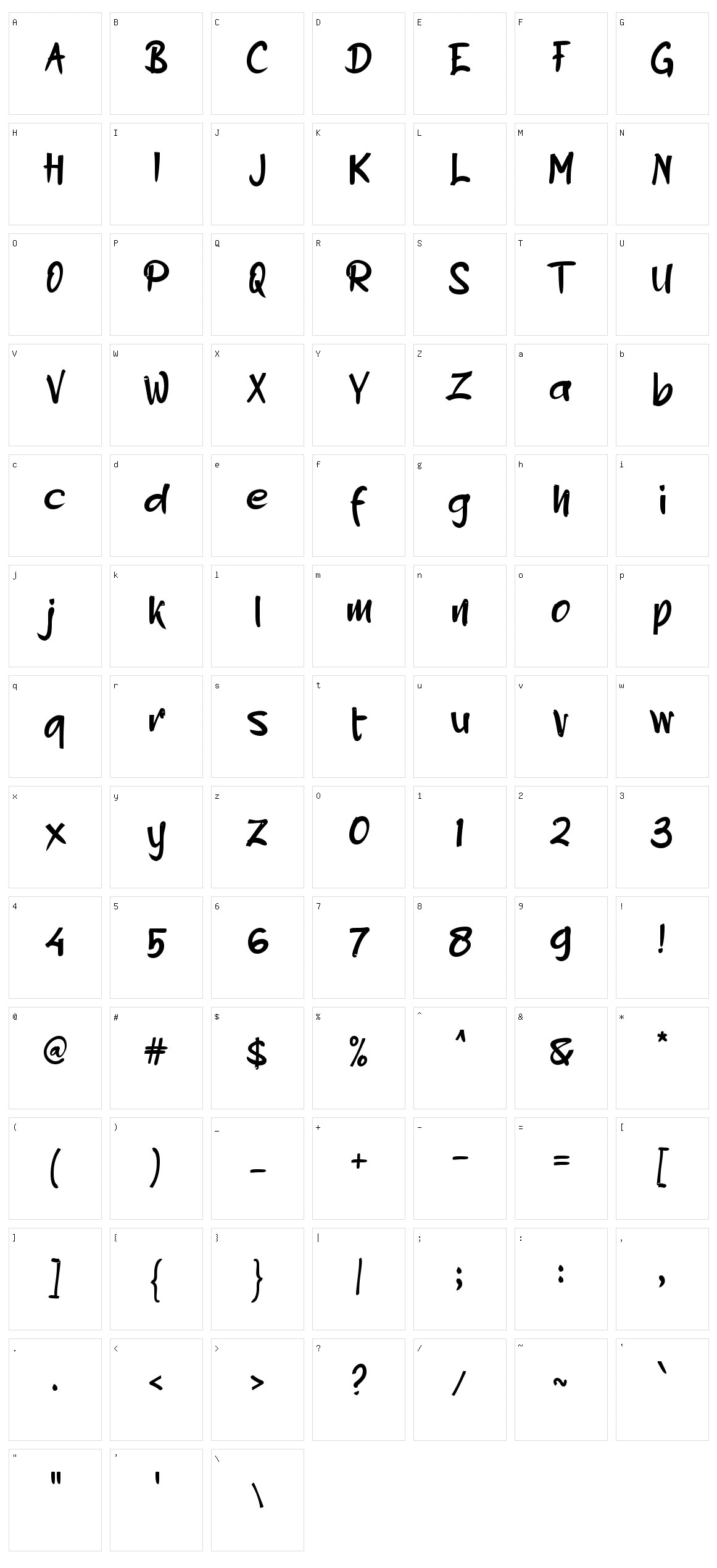
The free font b Bikin Asyik is carefully designed by wep, showcasing a thoughtful balance of creativity and usability and falls under the Script font style. When you download the ZIP file, it contains only 15.66 KB of font files, making it lightweight and quick to download. Please review the license details below to understand permitted usage and distribution rights. If license information is not available, we recommend using this font for personal projects only or contacting the author directly for commercial usage permissions.